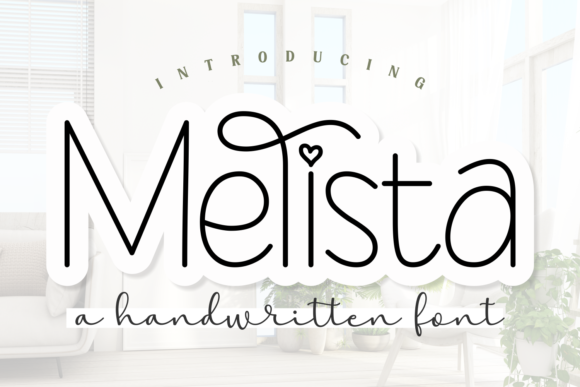
Dive into the realm of enchanting calligraphy with Melista Font, a captivating creation from Creative Fabrica Fonts. This script font exudes a charm that will ignite your creativity and transport you to a world of handwritten wonders.
With its smooth flow and delicate hearts adorning the letter "i," Melista Font is a visual masterpiece that adds a touch of whimsy and delight to every project. The harmonious blend of uppercase and lowercase characters creates a unique visual aesthetic, making your words dance off the page with grace and elegance.
Unleash your imagination and let Melista Font guide you through a world of creative possibilities. Whether you're crafting heartfelt journal entries, preserving cherished memories in scrapbooks, or designing handmade cards that speak from the heart, this font will elevate your creations to new heights of artistry.
Melista Font's versatility knows no bounds, making it the perfect companion for a diverse range of projects. Explore the world of digital art, where you can infuse your designs with a personal touch, creating social media posts, website graphics, and digital invitations that radiate warmth and charm.
Step into the world of physical artistry with Melista Font, where you can transform ordinary objects into extraordinary works of art. Personalize mugs, tote bags, and home décor with heartfelt messages, creating unique gifts that will be treasured for years to come.
Experience the magic of Melista Font today and let your creativity soar. With its captivating charm and endless possibilities, this font will transform your creative endeavors into works of art that resonate with emotion and leave a lasting impression.